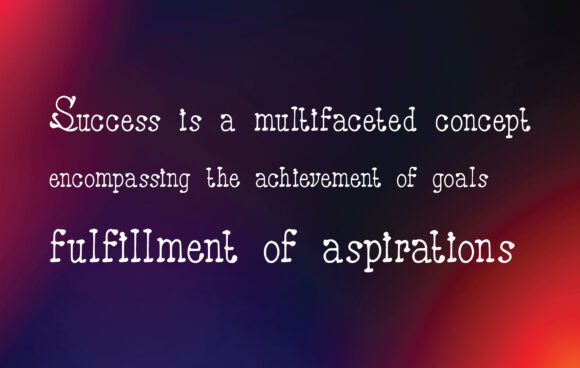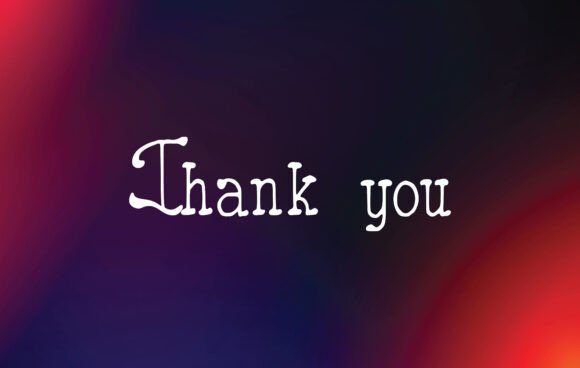
Introducing Andy Font: Elevate Your Creative Projects with a Lovely Handwritten Style
Are you on the hunt for a font that can add a personal touch to your designs? Look no further than Andy Font, a beautiful handwritten font that is sure to take your creative ideas to new heights. With its unique and elegant style, Andy Font is the perfect choice for designers, crafters, and anyone looking to add a touch of sophistication to their projects.
The Beauty of Andy Font
Andy Font is a lovely and beautiful handwritten font that boasts a distinctive and charming style. Its elegant lines and curves make it perfect for creating eye-catching logos, branding, and quotes that are sure to capture the attention of your audience. Whether you’re working on a personal project or a client’s, Andy Font is sure to bring a touch of class and sophistication to your designs.
Why Choose Andy Font?
So, what sets Andy Font apart from other fonts on the market? Here are just a few reasons why Andy Font is the best choice for your creative projects:
- Unique and Elegant Style: Andy Font boasts a unique and elegant style that is sure to make your designs stand out from the crowd.
- Versatile: Andy Font is perfect for a wide range of creative projects, from logos and branding to quotes and more.
- Easy to Read: Despite its elegant style, Andy Font is easy to read, making it perfect for use in both digital and print designs.
- High-Quality: Andy Font is a high-quality font that is designed to deliver exceptional results, even at large sizes.
Uses for Andy Font
So, what can you use Andy Font for? The possibilities are endless! Here are just a few ideas to get you started:
- Logo Design: Andy Font is perfect for creating eye-catching logos that are sure to make your brand stand out.
- Branding: Use Andy Font to create a consistent brand identity that is sure to leave a lasting impression on your customers.
- Quotes and Inspiration: Andy Font is perfect for creating inspiring quotes and messages that are sure to motivate and uplift your audience.
- Digital and Print Designs: Andy Font can be used in a wide range of digital and print designs, from social media graphics to brochures and more.
Tips for Using Andy Font
Here are a few tips for getting the most out of Andy Font:
- Experiment with Different Sizes: Andy Font looks great at a wide range of sizes, so don’t be afraid to experiment and find the perfect size for your design.
- Pair with Other Fonts: Andy Font pairs well with a wide range of other fonts, so feel free to get creative and experiment with different combinations.
- Use in Combination with Images: Andy Font looks great when used in combination with images, so consider using it to add a touch of elegance to your designs.
In conclusion, Andy Font is a beautiful handwritten font that is sure to take your creative ideas to new heights. With its unique and elegant style, versatility, and high-quality design, Andy Font is the perfect choice for designers, crafters, and anyone looking to add a touch of sophistication to their projects. So why wait? Download Andy Font today and start creating stunning designs that are sure to capture the attention of your audience!